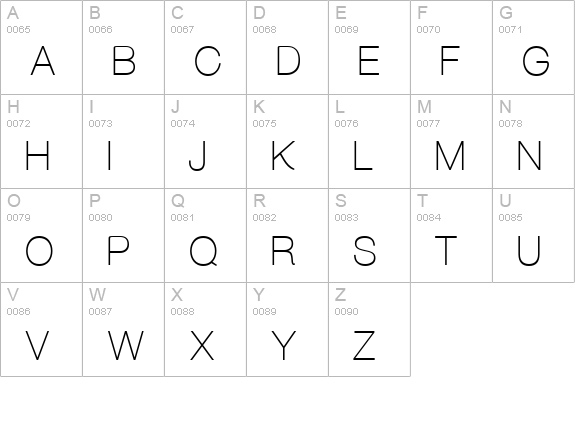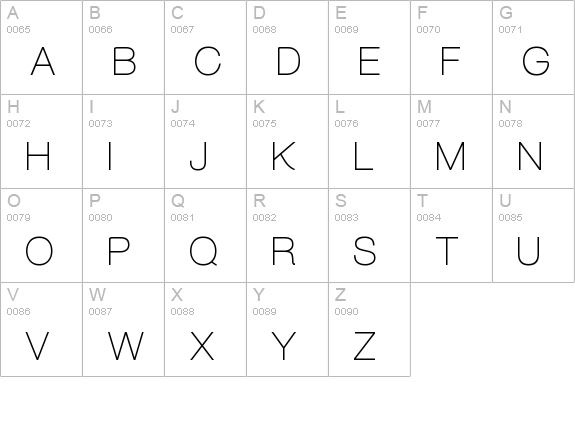
Aovel Sans Font Details
Introducing Aovel Sans, a versatile and contemporary font that captivates with its clean lines and modern aesthetics. This font is the perfect blend of sophistication and simplicity, making it ideal for a wide range of design projects. Aovel Sans exudes a sense of elegance and professionalism, while still maintaining a friendly and approachable feel. Its sleek and balanced letterforms create a harmonious visual impact, ensuring your message is delivered with clarity and style. With a wide range of weights and styles to choose from, Aovel Sans offers endless possibilities for creative expression. Whether you're designing a logo, a website, or a print advertisement, this font adapts effortlessly to suit your needs. What sets Aovel Sans apart is that it is not only visually striking, but also freely available to download. You can easily access this font at FontsMarket.com, a trusted source for high-quality fonts. This means that you can now enhance your projects with this exceptional typeface without any financial constraints. Download Aovel Sans today and elevate your designs to new heights. Experience the freedom of creativity and the limitless potential this font brings. Embrace the modern elegance of Aovel Sans and leave a lasting impression on your audience.